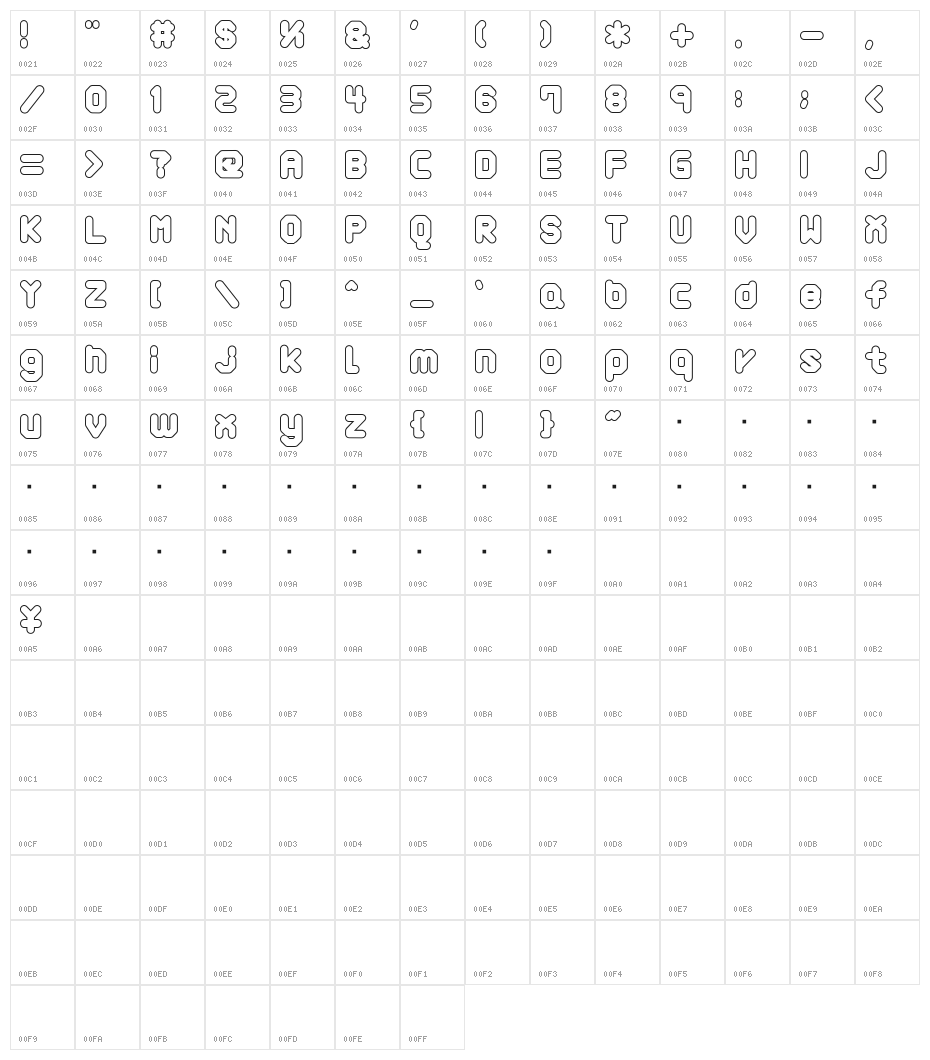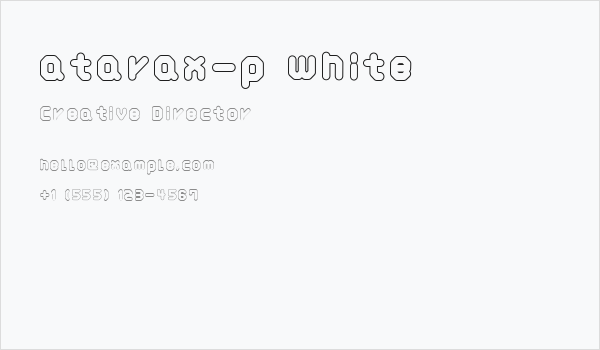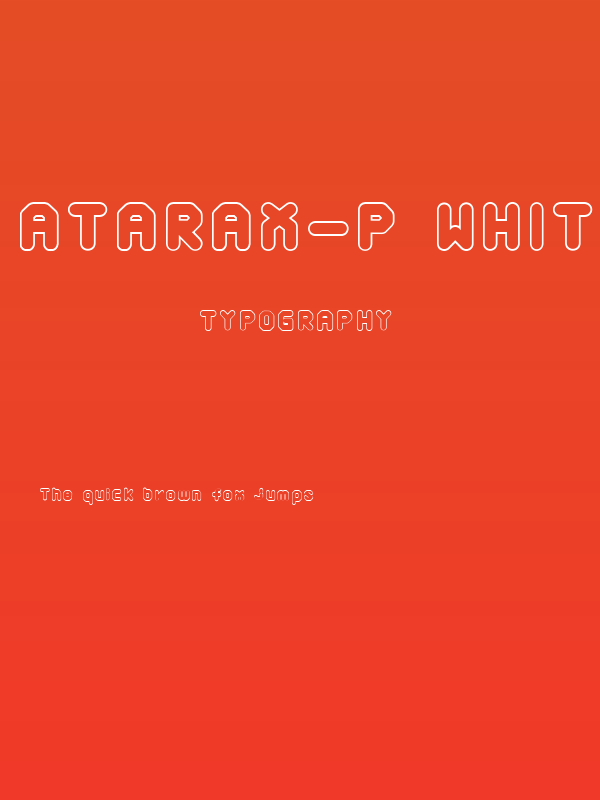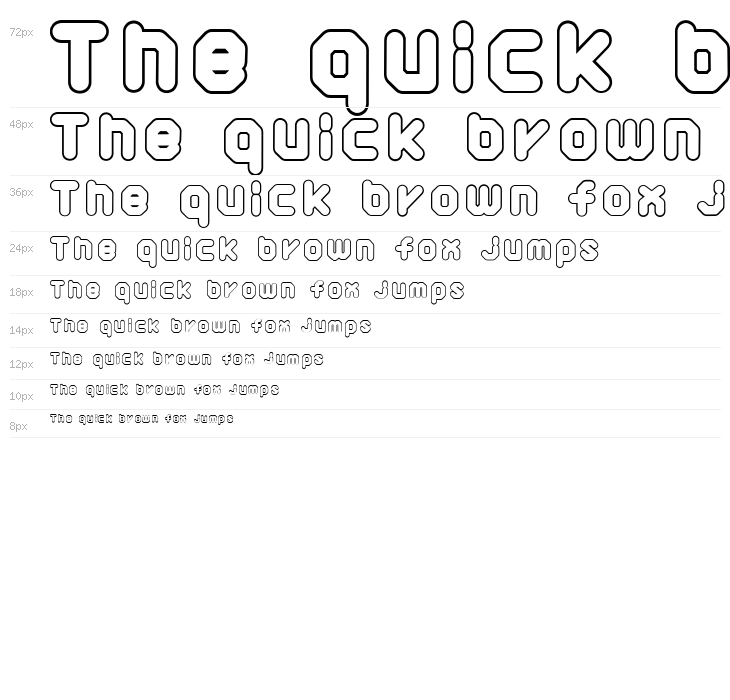
atarax-p white Font
atarax-p white Description
This font features a unique, outlined style with a modern and playful aesthetic. The characters are bold and geometric, with rounded edges that give a soft, approachable feel. The uppercase and lowercase letters maintain a consistent design, ensuring readability while adding a touch of creativity. Numbers and special characters follow the same design principles, making them suitable for a variety of uses. The font's distinct outline gives it a three-dimensional effect, making it stand out in any design project.
| Proposed Projects | Ideal for branding, posters, headlines, and any design project that requires a modern and playful touch. |